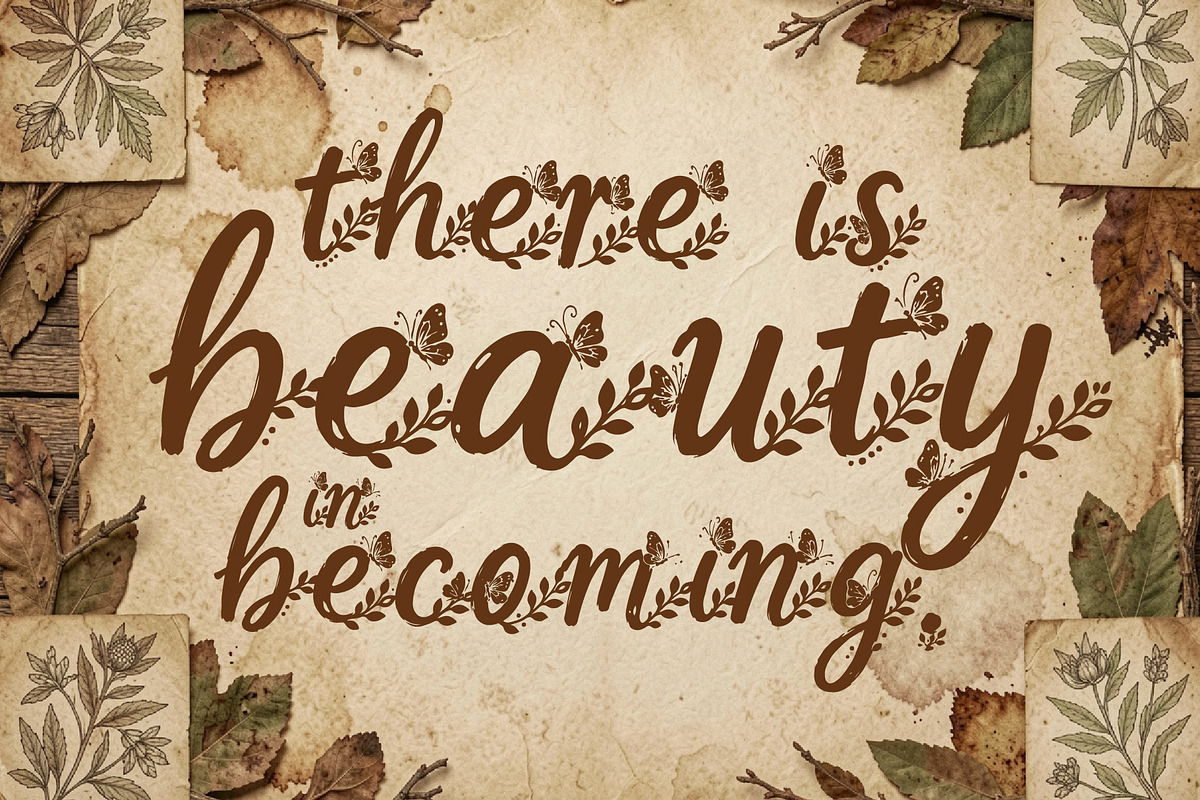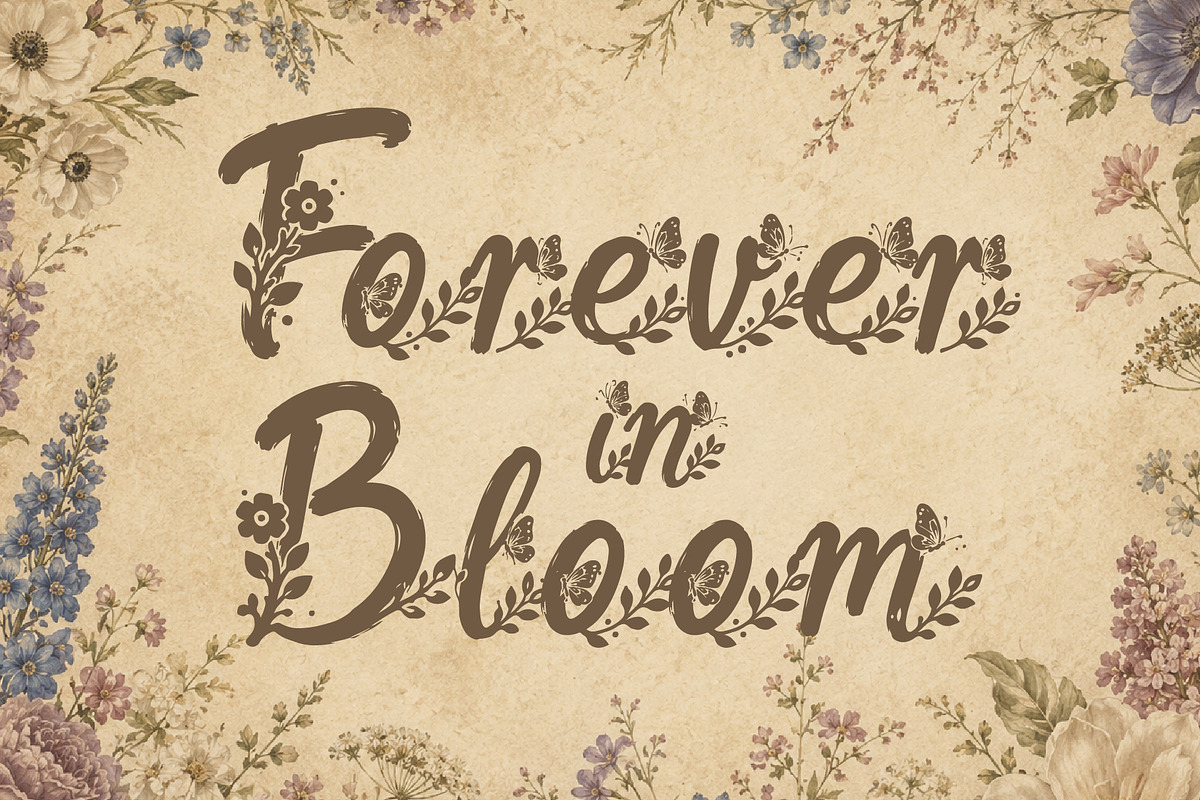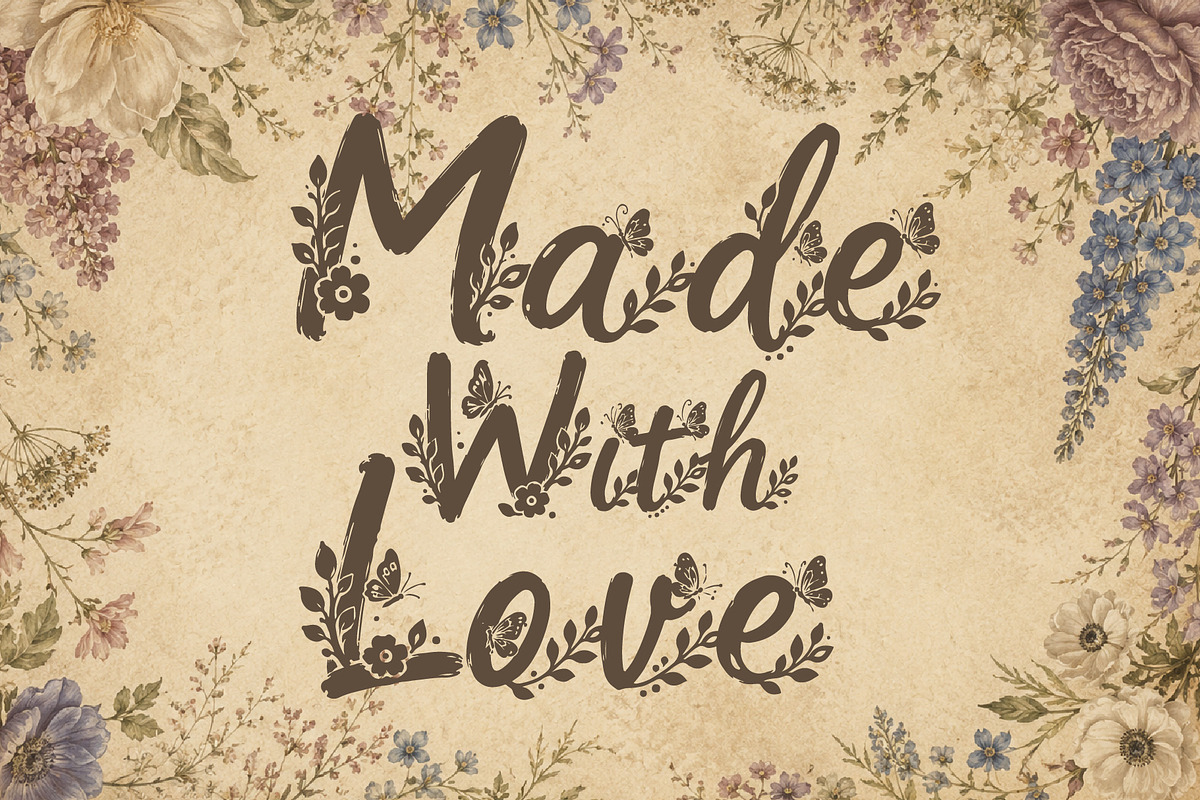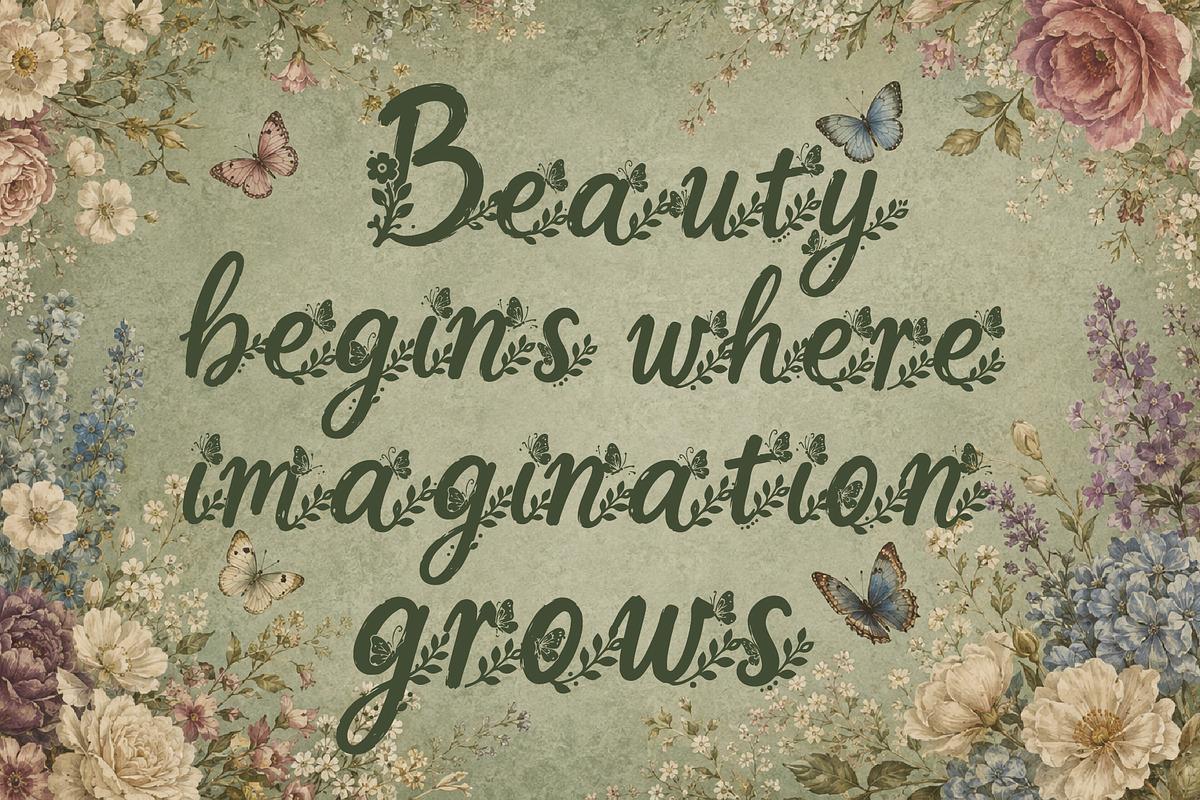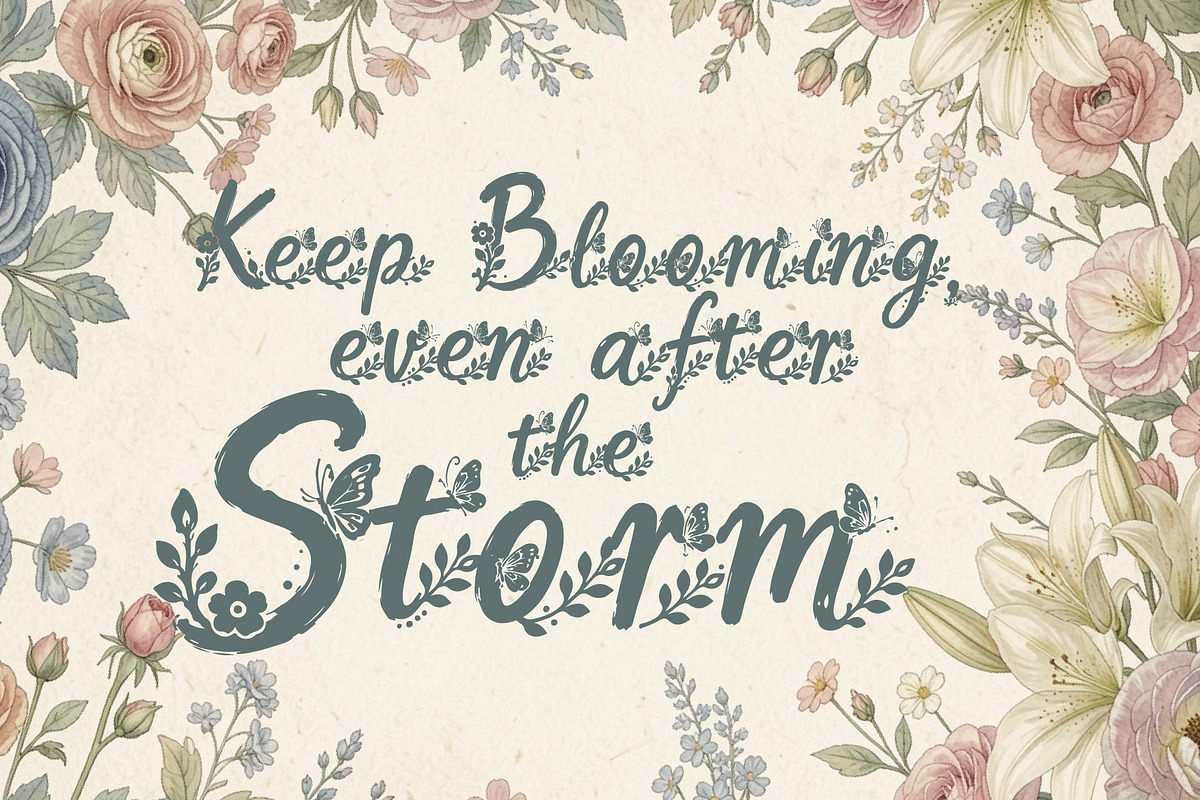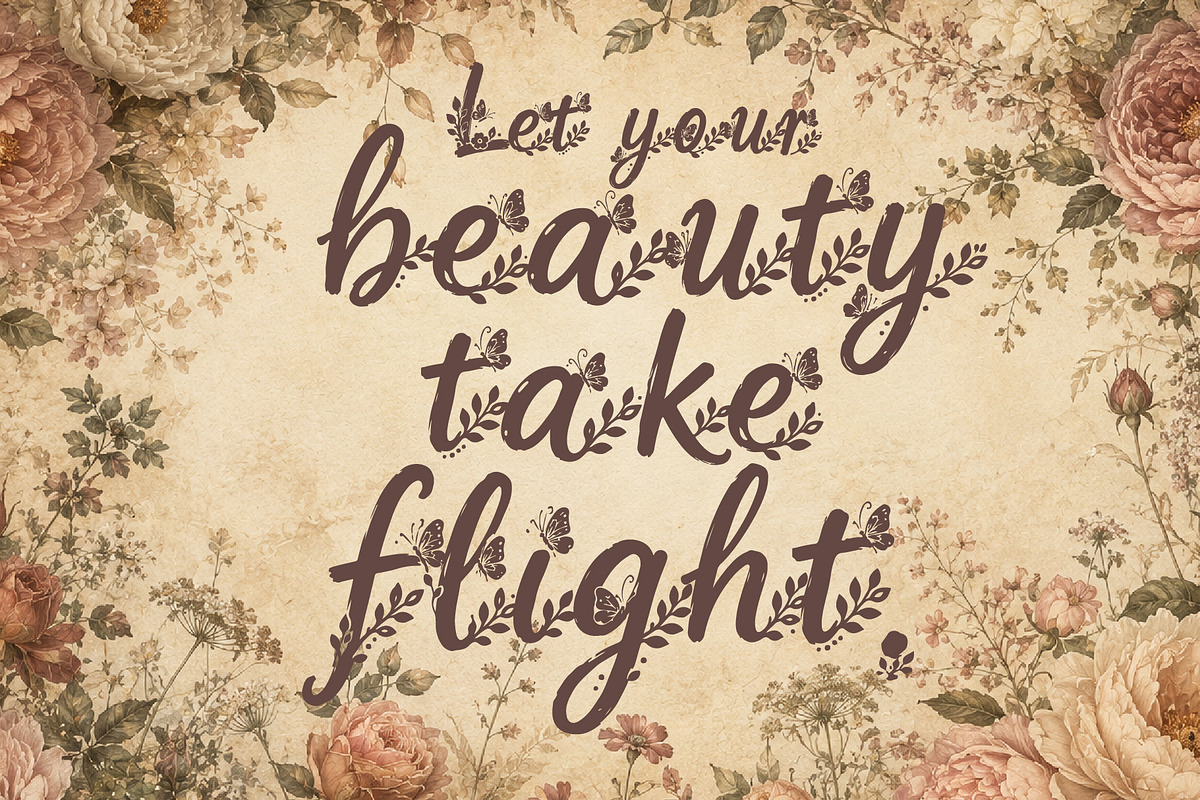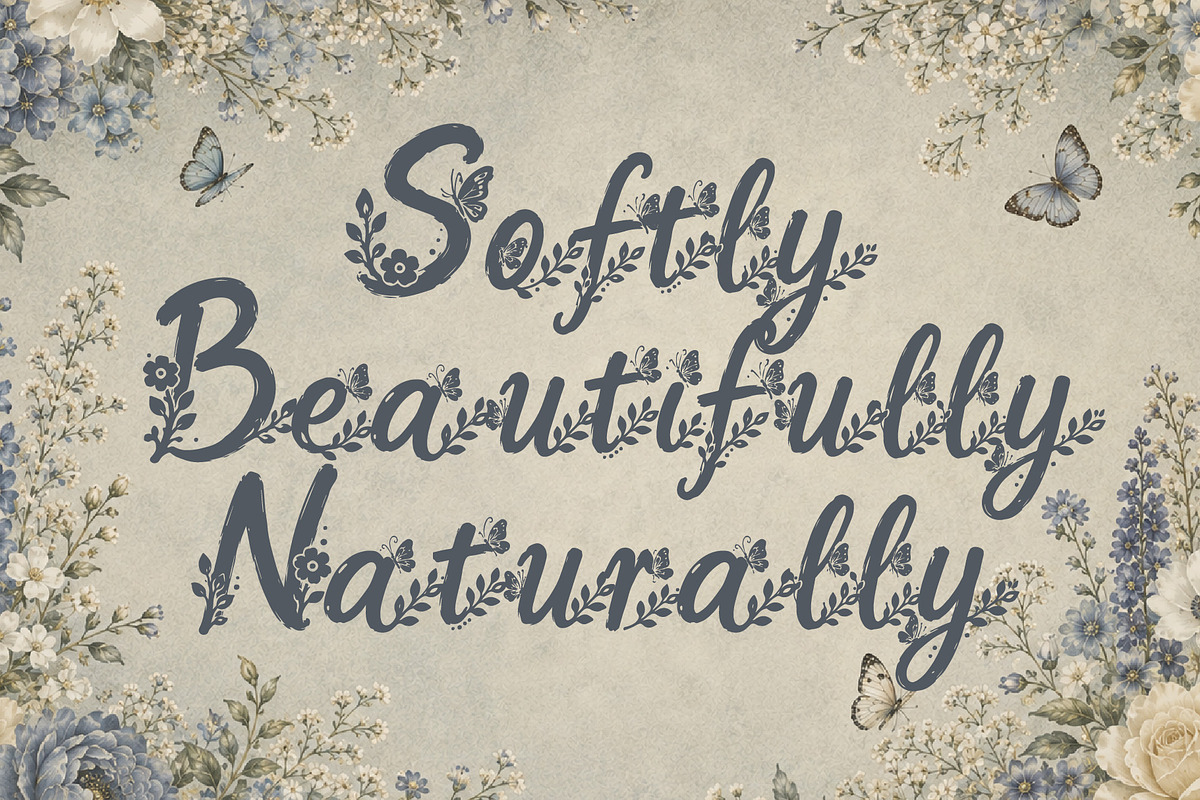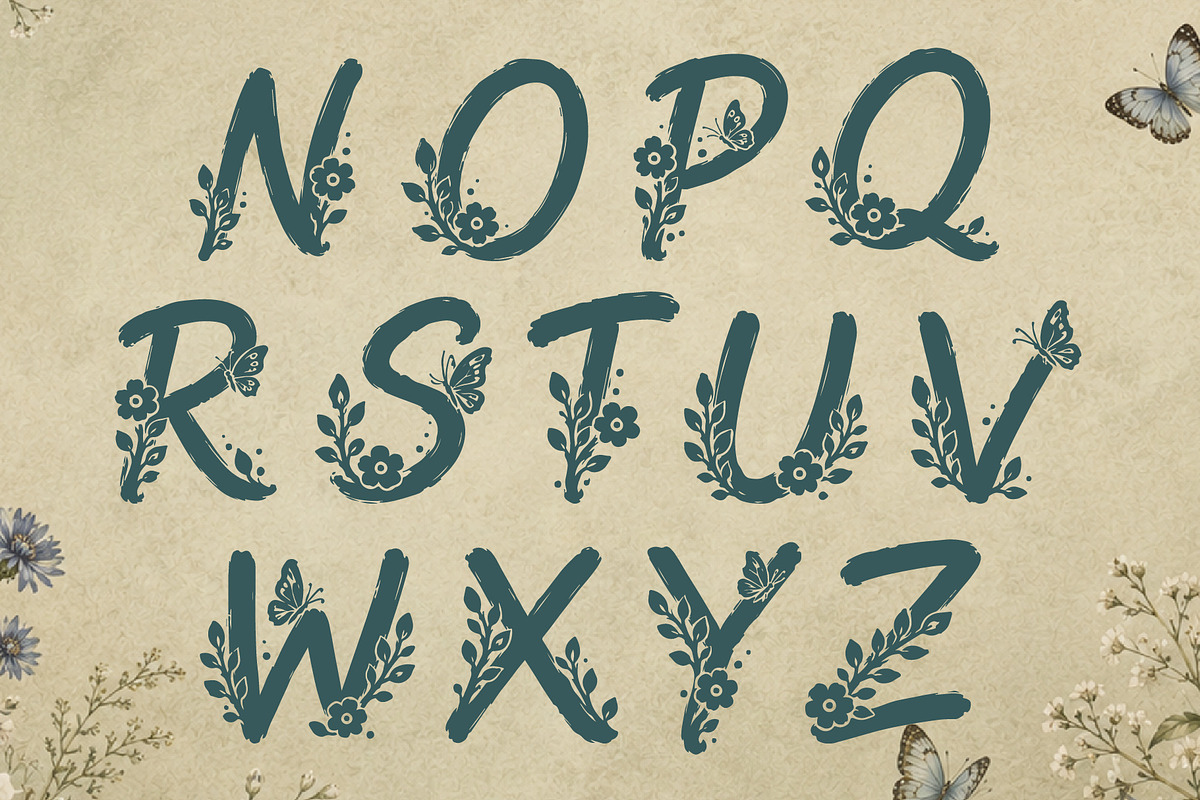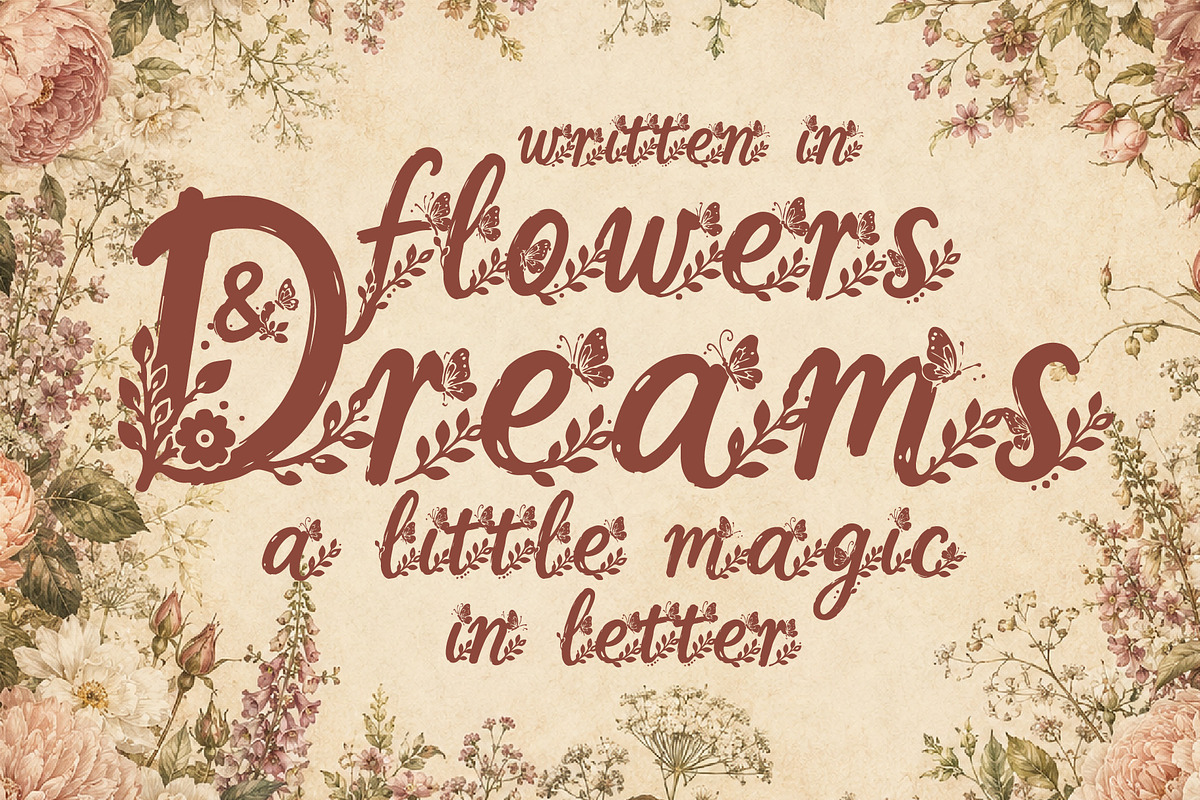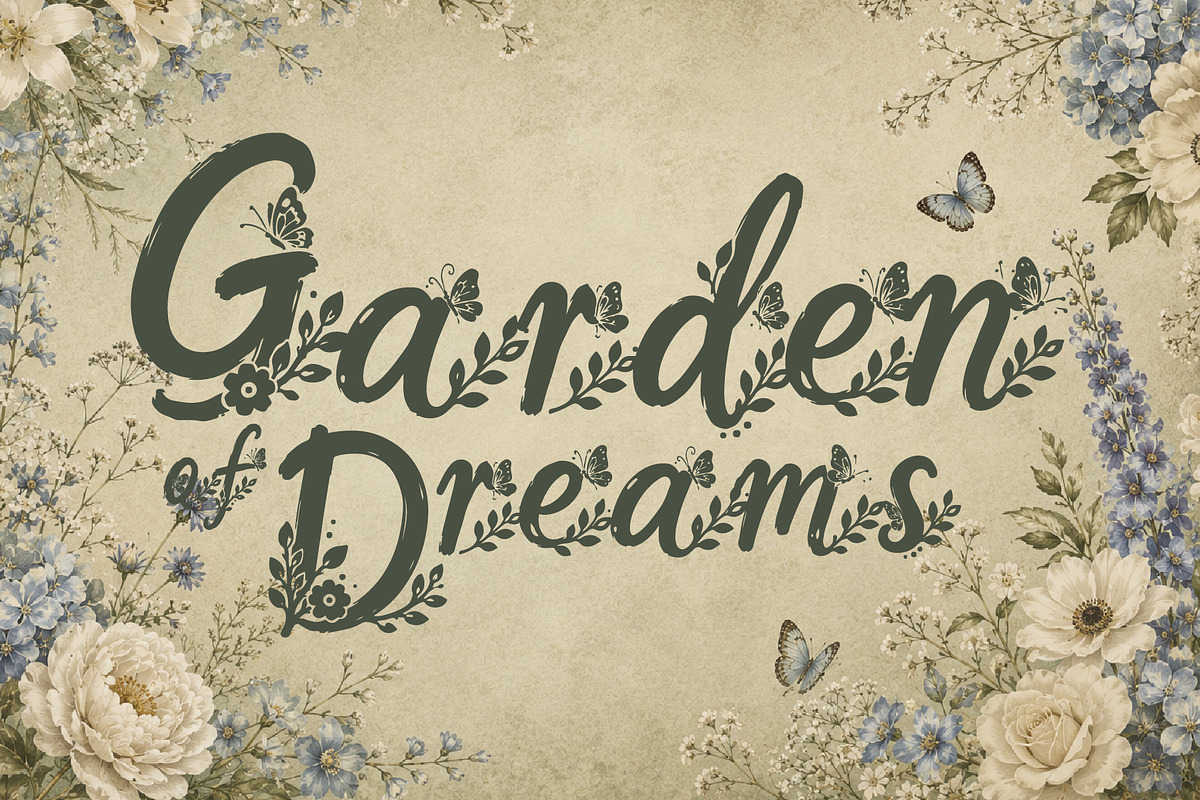
Aerisfly - Butterflies & Floral
Aerisfly is a Decorative display font inspired by blooming flowers, delicate butterflies, and the graceful beauty of nature. Its elegant letterforms are enhanced with charming floral and butterfly details, creating a romantic and enchanting visual style.
With its graceful personality and whimsical botanical character, Aerisfly brings a touch of softness, elegance, and natural beauty to every design.